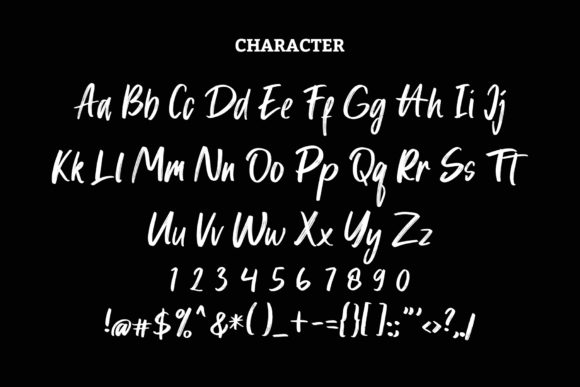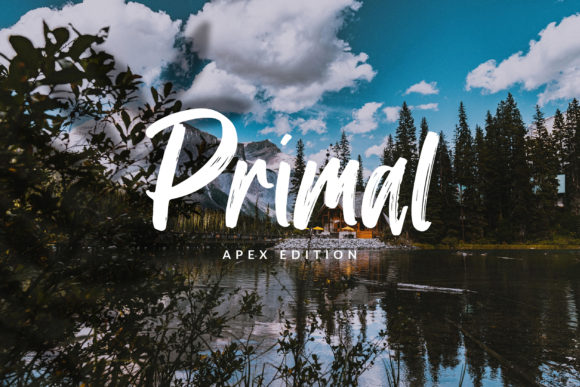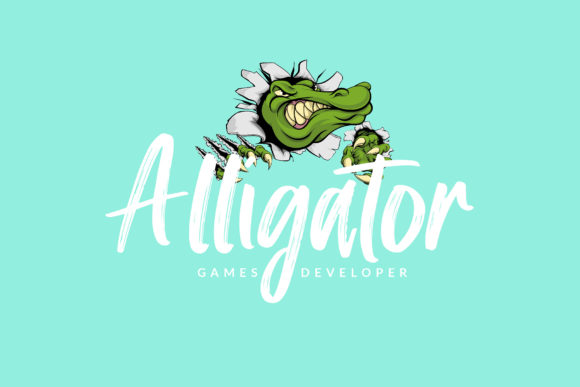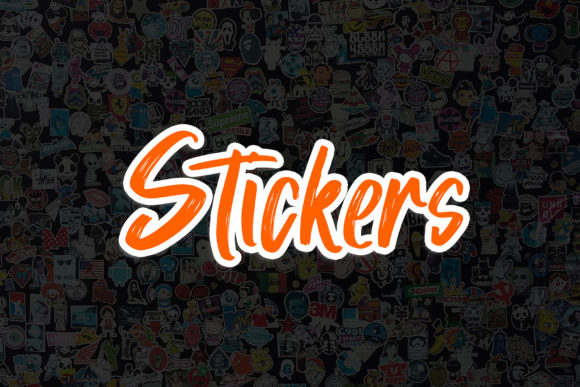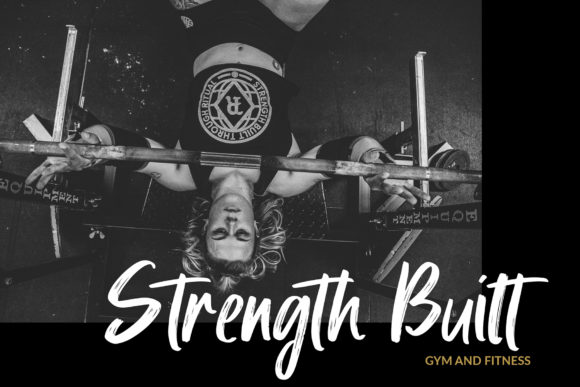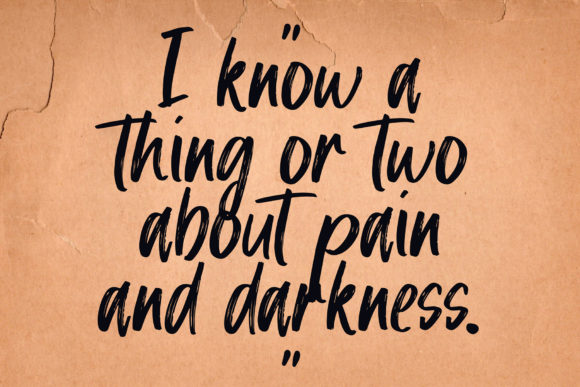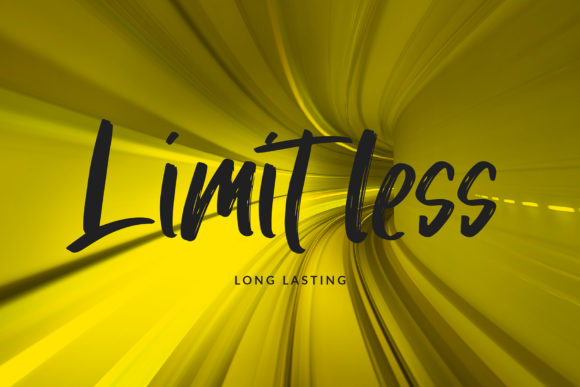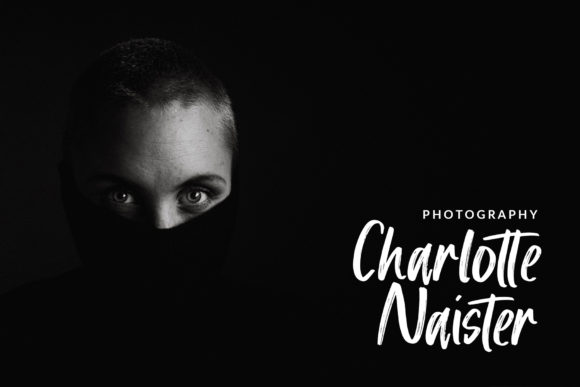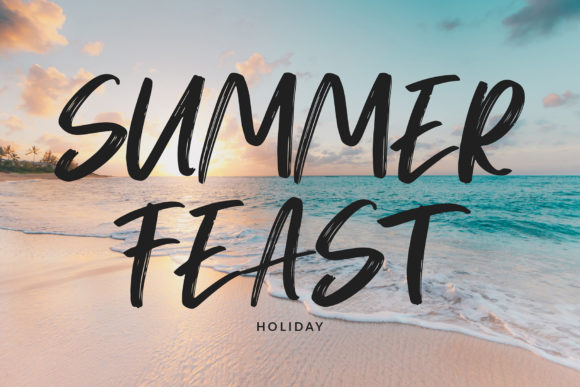
Wakeling Font
About Wakeling Font
Wakeling is a handwritten font with a brush style. It will elevate a wide range of design projects to the highest level, be it branding, headings, wedding designs, invitations, signatures, logos, labels, and much more!